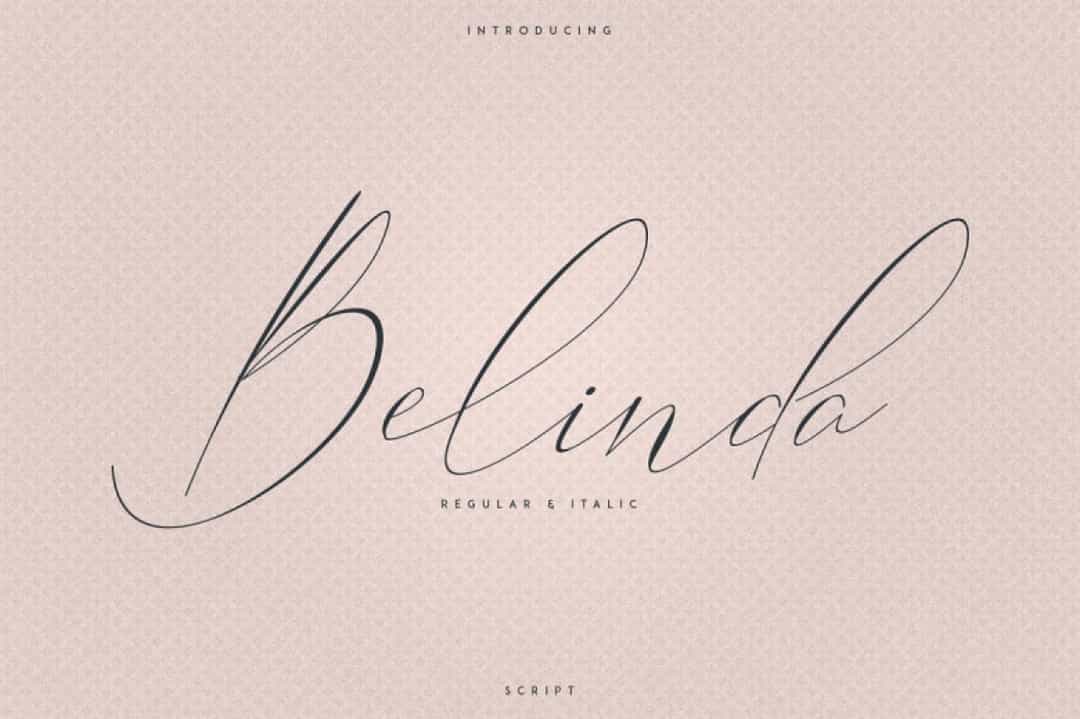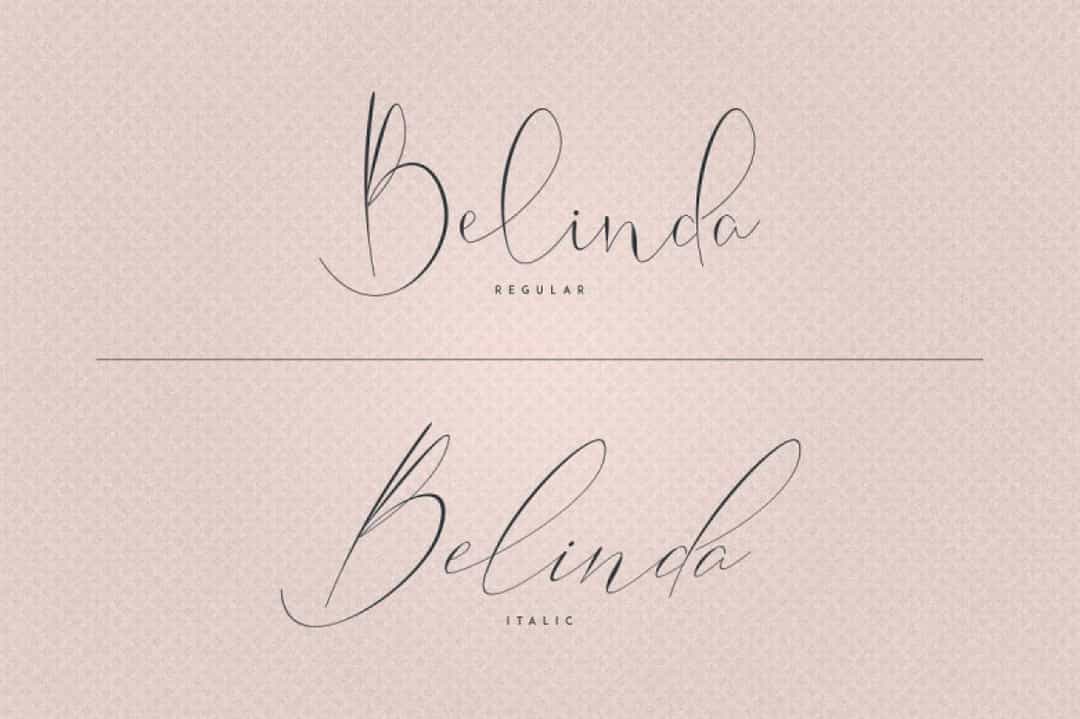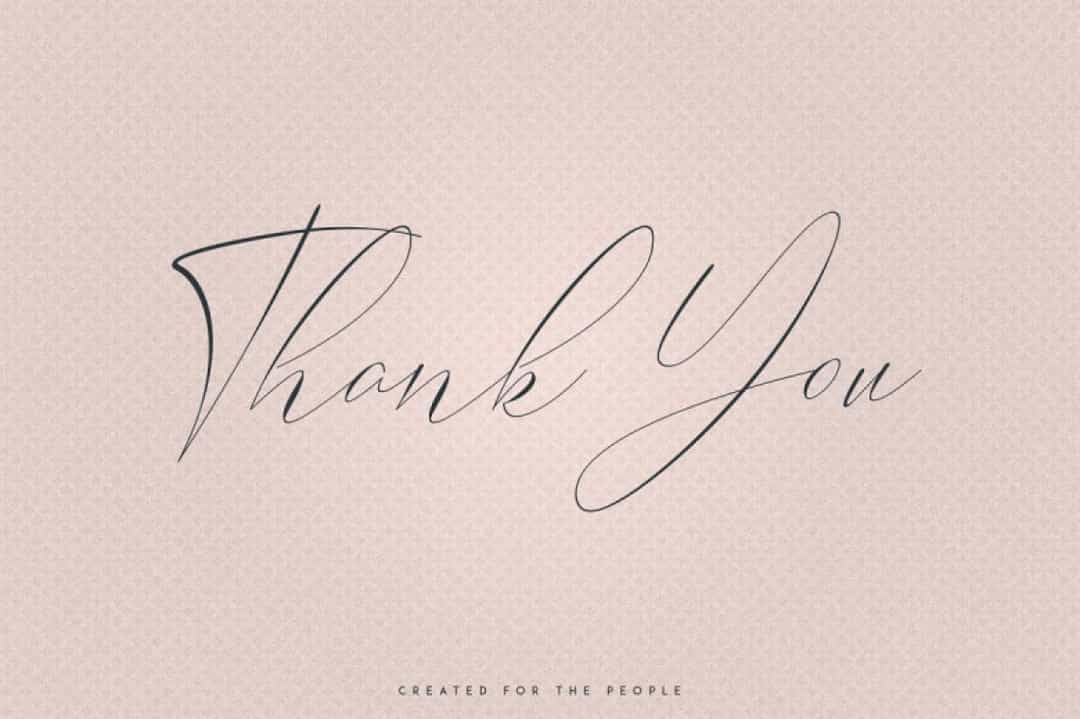
Belinda Font – This is the typeface you will love if you are in search of a calligraphy one. The imperfect style has its ups and downs just like a dance the letters are smooth, clean and simple. Belinda was created and is now being distributed by the VPcreativeshop. Belinda Script Font is an elegant and clean font with regular, italic styles and multilingual support. It is a font that can be used in many different sizes, both large and small.